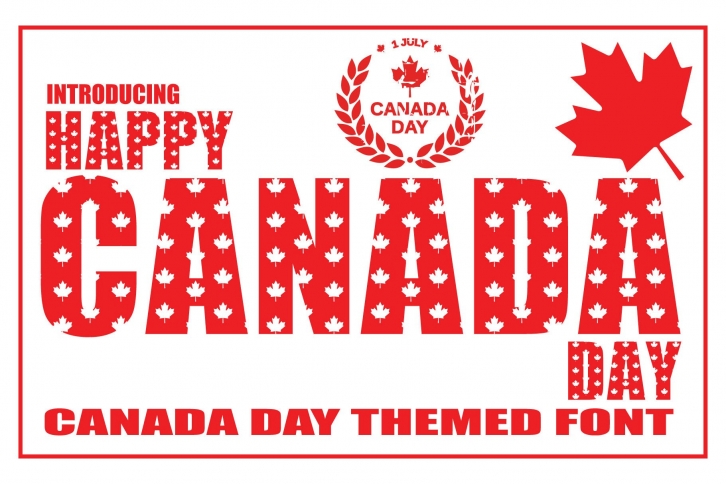
Happy Canada Day is a thick lettered and incredibly unique decorative font. It can be used for various design ideas, particularly those related to festive events and games. This font is PUA encoded which means you can access all of the glyphs and swashes with ease!